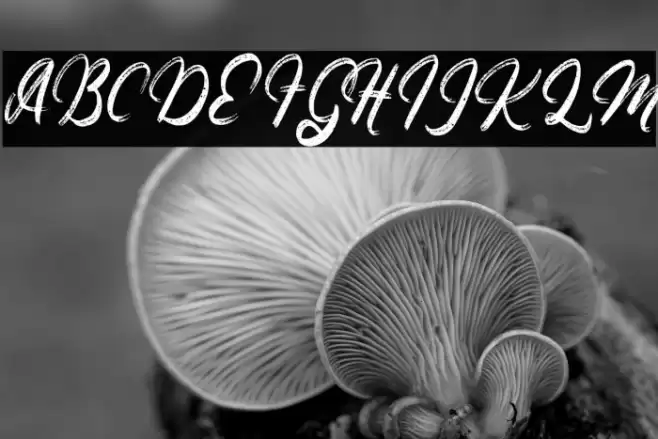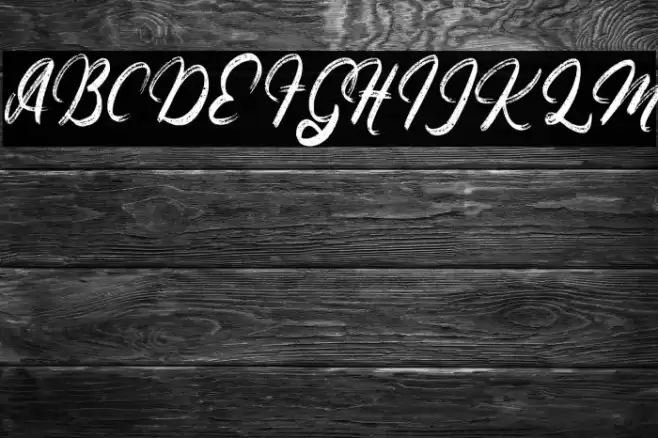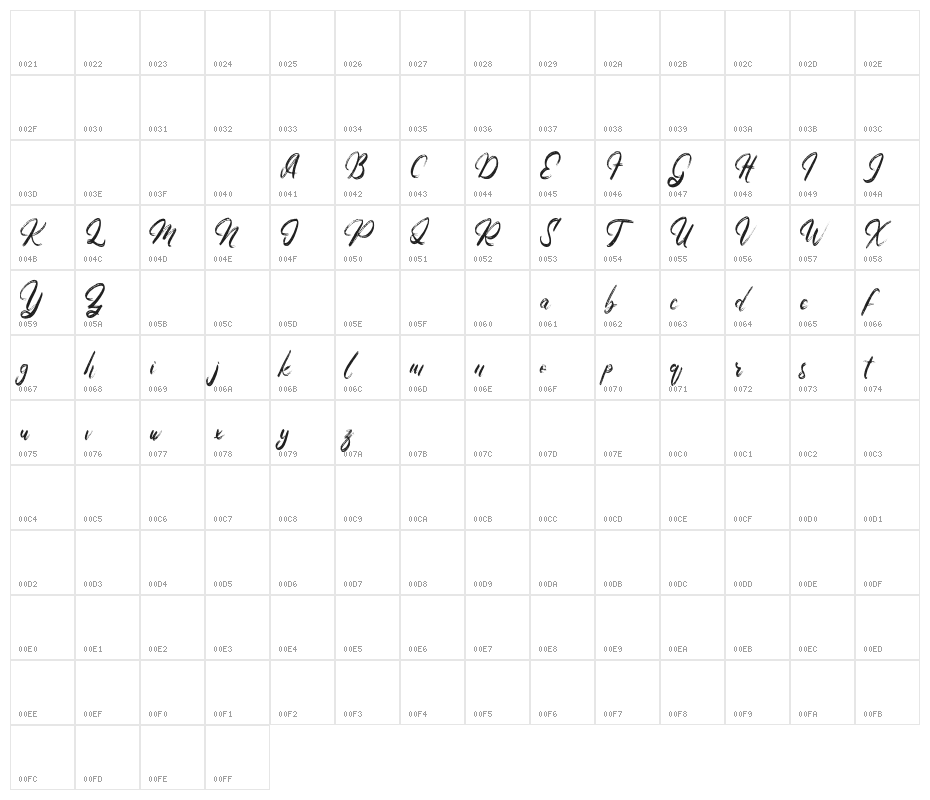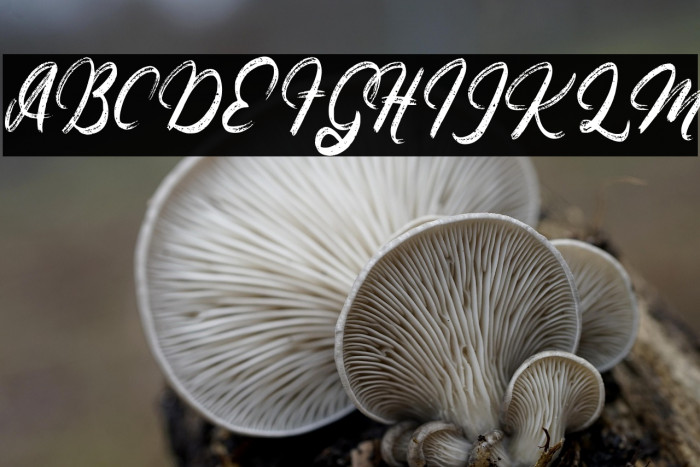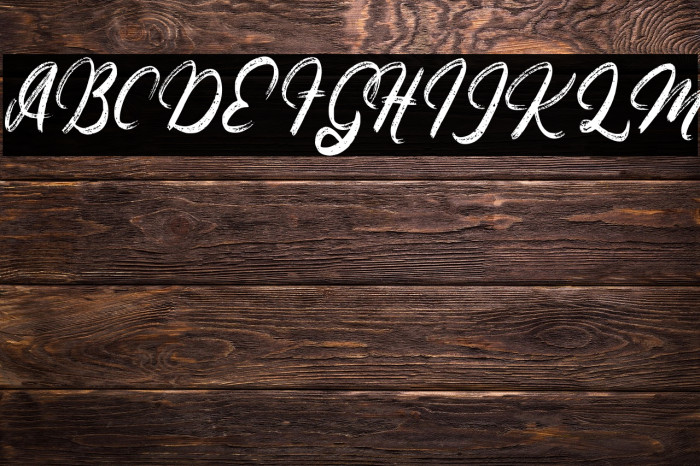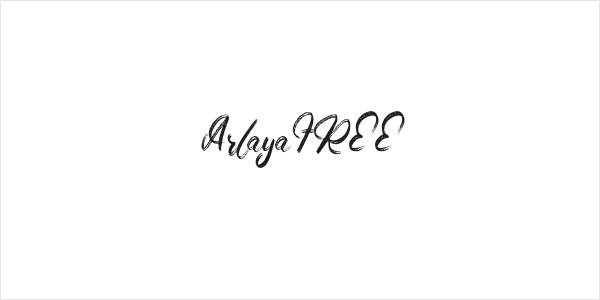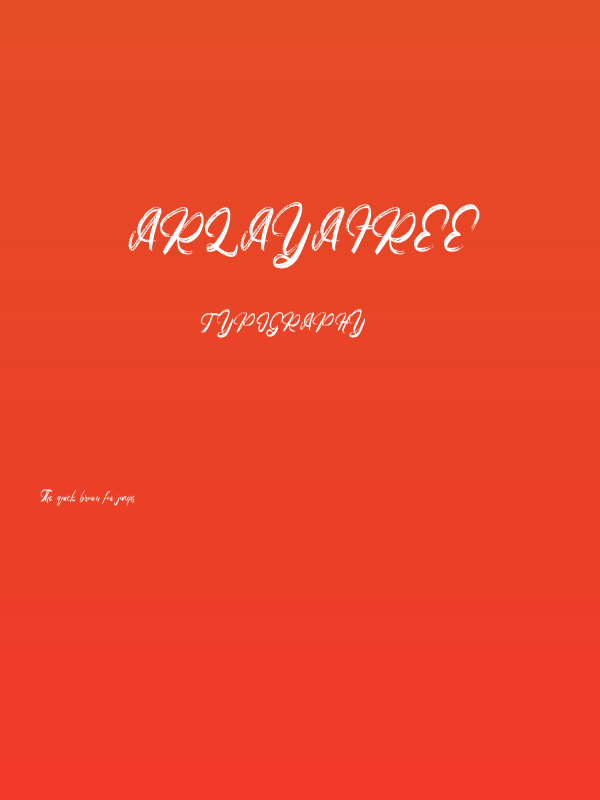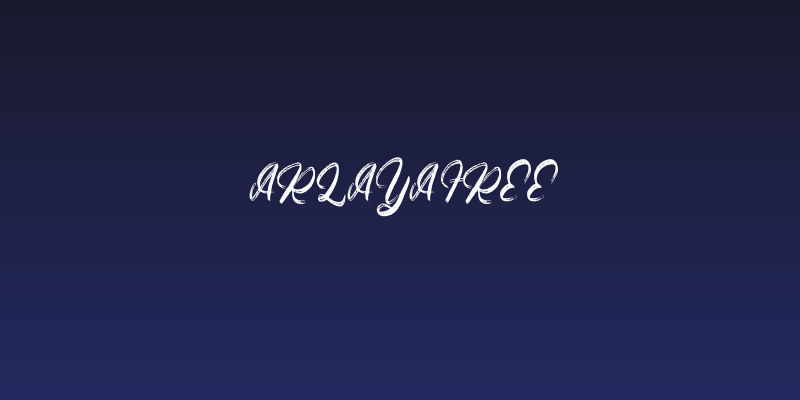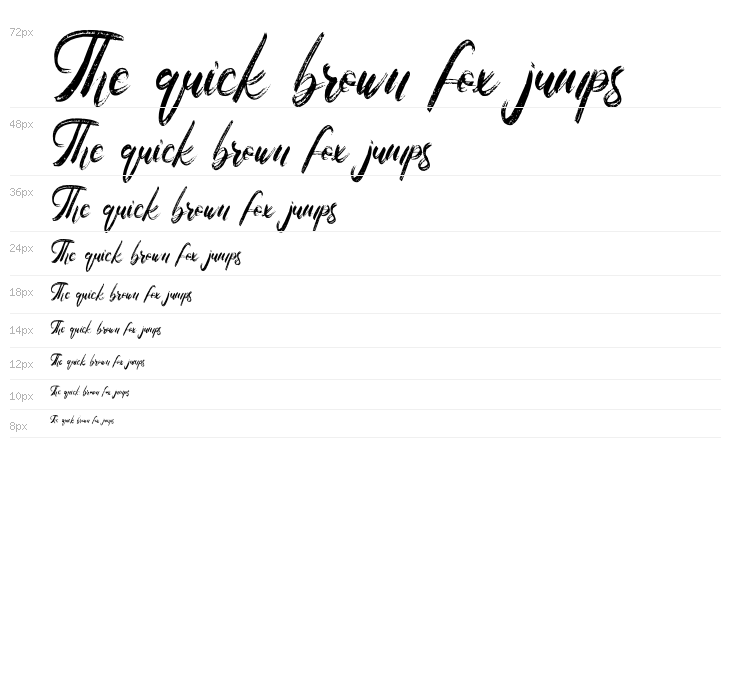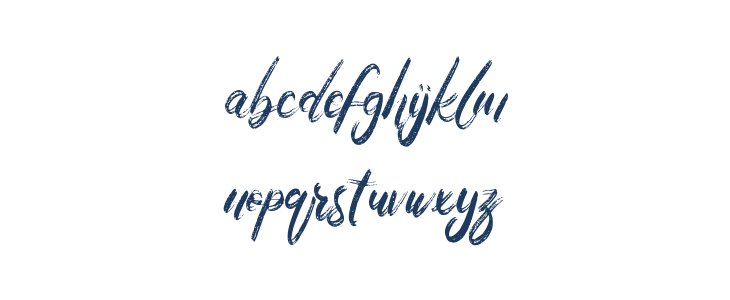
ArlayaFREE Font
ArlayaFREE Description
This font features a dynamic and expressive script style, characterized by its fluid, brush-like strokes that convey a sense of movement and elegance. The uppercase letters are bold and sweeping, while the lowercase letters maintain a consistent flow, enhancing readability. The texture of the strokes gives it a handcrafted appearance, adding a personal touch to any design. The font's artistic flair makes it suitable for projects that require a creative and informal aesthetic. Its unique style is ideal for capturing attention and conveying a sense of creativity and individuality.
A dynamic script font with brush-like strokes and a handcrafted appearance from Uncategorized fonts.
- Proposed Projects: Ideal for branding, invitations, greeting cards, and artistic projects that require a personal touch.
- Use Case: Logos, Headlines, Artistic designs